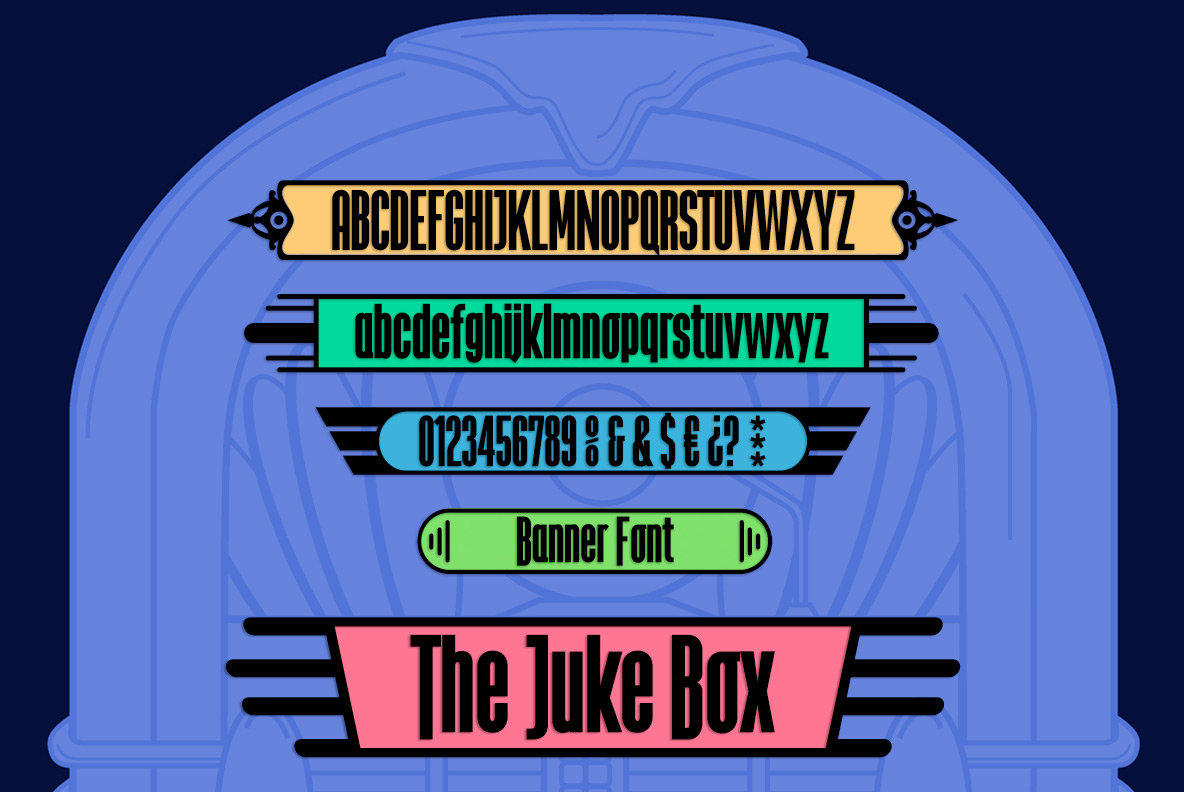
The Juke Box Font
The Juke Box
The Juke Box font is inscribed in a frame, which forms a box, to close that box the font has 12 sets of closing of box with JukeBox style.
The Juke Box, has several closures box, use the following keys: • Keys: () [] {} |¬ _
Apply discretionary ligatures in QuarkXpress, inDesign, Photoshop and Illustrator for the second set of ornate closures.
• OpenType Features: Discretionary Ligatures, Alternate characters, numbers small caps, inferiors, superiors, ordinales, slashed zero, localize forms, fractions, Ornaments, Alternate Titles, Superior letters.